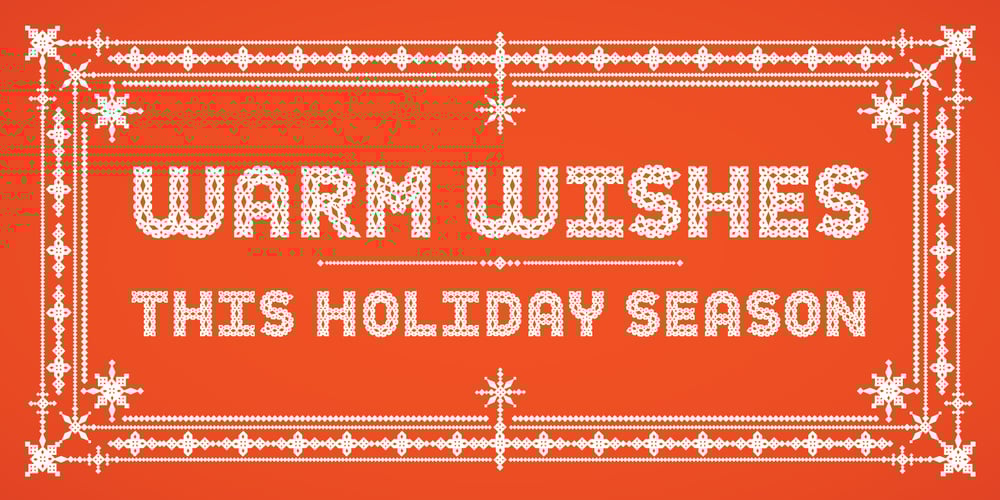
Snowflake Font Family was designed by Jessica Hische and published by Jessica Hische. Snowflake contains 2 styles and family package options. Snowflake is a new typeface by Jessica Hische, released in September of 2010. Inspired by cut paper snowflakes, this whimsical face is perfect for the holidays! It also resembles Mexican papel picado, so it is as at home in Summer designs as it is in wintery ones. The full typeface includes full alphabet, numbers, punctuation, accent characters as well as over a dozen snowflake ornaments which can be used to create amazing decorative borders or to just sprinkle about! You can also purchase just the snowflake ornaments separately, if it is just the ornaments you are after.